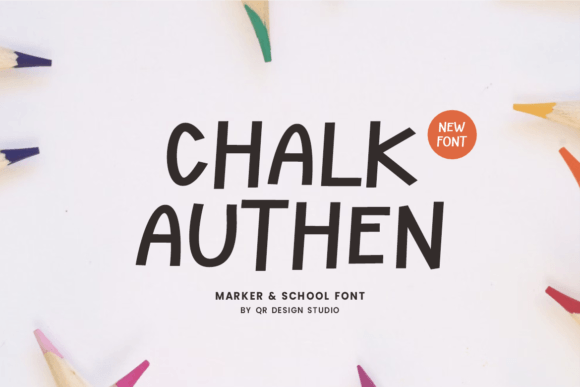
Introducing Chalk Authen Font: The Sweet and Friendly Handwritten Font
Are you looking for a font that can add a personal touch to your designs? Look no further than Chalk Authen Font, a sweet and friendly handwritten font that is perfect for a wide range of projects. In this article, we’ll take a closer look at Chalk Authen Font, its features, and how you can use it to take your designs to the next level.
What is Chalk Authen Font?
Chalk Authen Font is a handwritten font that is designed to mimic the natural look of chalk writing. Its unique and friendly style makes it incredibly versatile, and it’s perfect for designs that require a personal touch. Whether you’re creating a logo, a poster, or a social media graphic, Chalk Authen Font is sure to make your design stand out.
Features of Chalk Authen Font
So, what makes Chalk Authen Font so special? Here are just a few of its key features:
- Natural and unique style: Chalk Authen Font has a natural and unique style that is reminiscent of chalk writing. Its imperfections and quirks make it look like it was written by hand, adding a personal touch to your designs.
- Sweet and friendly: Chalk Authen Font is a sweet and friendly font that is perfect for designs that require a approachable and inviting tone.
- Highly versatile: Chalk Authen Font is incredibly versatile, and it’s perfect for a wide range of designs, from logos and posters to social media graphics and more.
- Easy to read: Despite its handwritten nature, Chalk Authen Font is easy to read, making it perfect for designs that require a clear and concise message.
Uses for Chalk Authen Font
So, what can you use Chalk Authen Font for? The possibilities are endless, but here are a few ideas to get you started:
- Logos and branding: Chalk Authen Font is perfect for logos and branding projects that require a personal touch. Its unique style makes it easy to create a memorable and recognizable brand identity.
- Posters and flyers: Chalk Authen Font is a great choice for posters and flyers that require a bold and eye-catching headline. Its friendly style makes it perfect for promoting events, products, and services.
- Social media graphics: Chalk Authen Font is perfect for social media graphics that require a personal touch. Its sweet and friendly style makes it easy to create engaging and shareable content.
- Wedding and event invitations: Chalk Authen Font is a great choice for wedding and event invitations that require a personal and elegant touch.
Tips for Using Chalk Authen Font
Here are a few tips for using Chalk Authen Font effectively:
- Use it sparingly: While Chalk Authen Font is a beautiful font, it can be overwhelming if used too much. Use it sparingly to add a personal touch to your designs.
- Pair it with other fonts: Chalk Authen Font pairs well with other fonts, such as sans-serif fonts like Arial or Helvetica. Experiment with different font combinations to find the perfect look for your design.
- Experiment with colors: Chalk Authen Font looks great in a variety of colors, from bright and bold to soft and pastel. Experiment with different colors to find the perfect look for your design.
In conclusion, Chalk Authen Font is a sweet and friendly handwritten font that is perfect for designs that require a personal touch. Its natural and unique style makes it incredibly versatile, and it’s perfect for a wide range of projects. Whether you’re creating a logo, a poster, or a social media graphic, Chalk Authen Font is sure to make your design stand out.
- What is Chalk Authen Font?: Chalk Authen Font is a handwritten font that is designed to mimic the natural look of chalk writing.